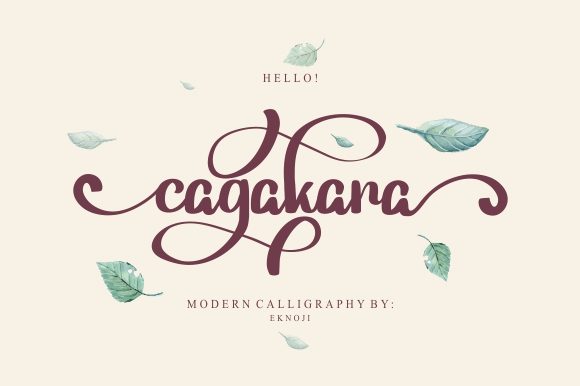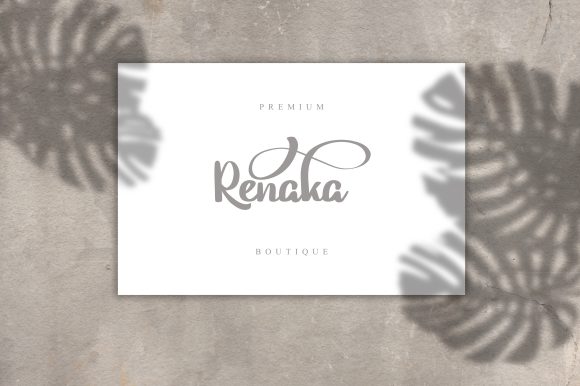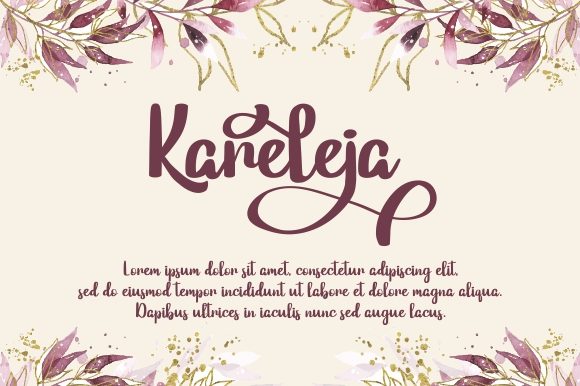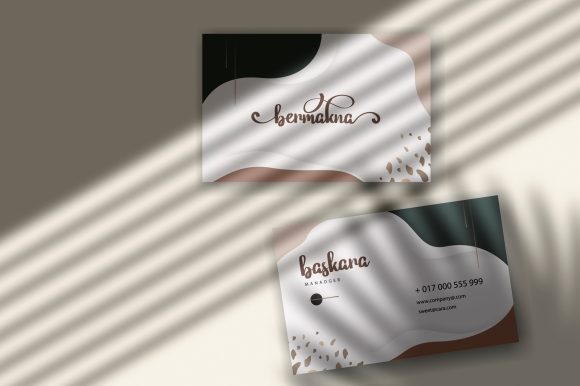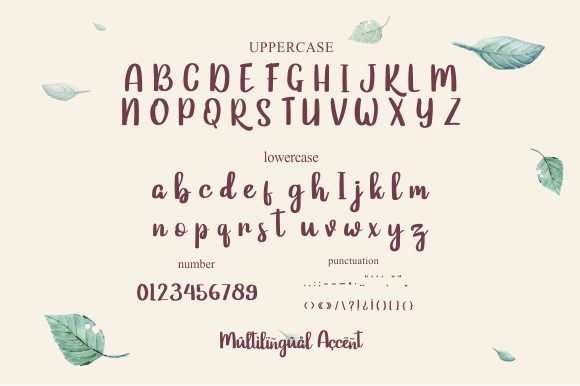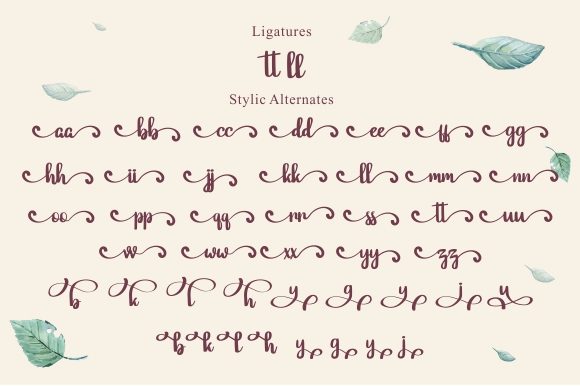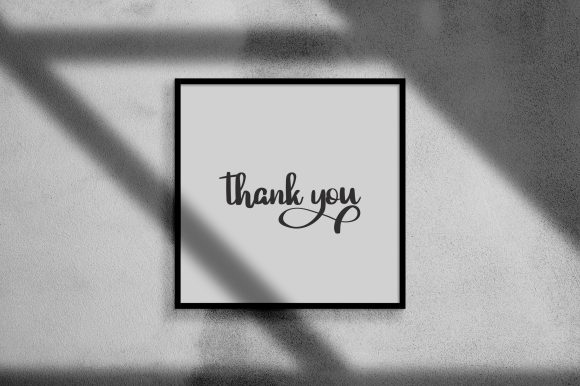
About Cagakara Font
Cagakara is a sweet, soft hand-lettered handwritten font. Fall in love with its authentic feel and use it to create gorgeous wedding invitations, beautiful stationary art, eye-catching social media posts, and cute greeting cards.